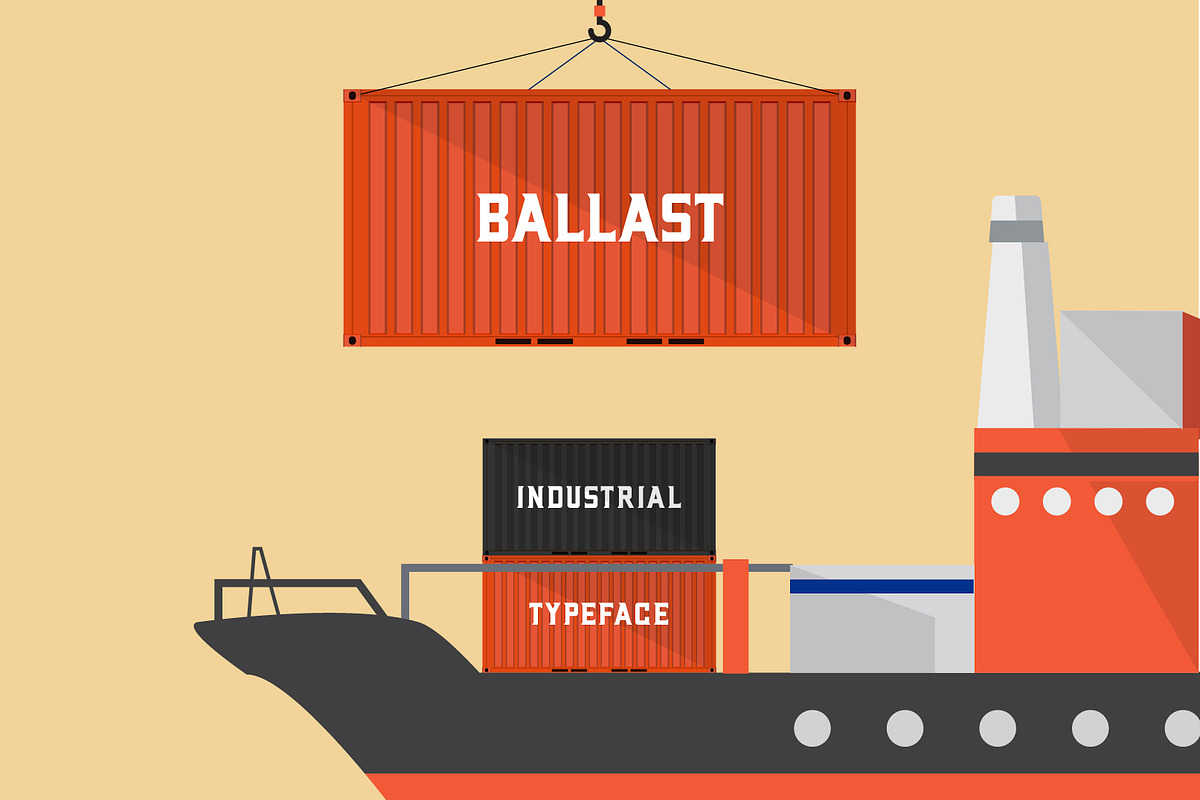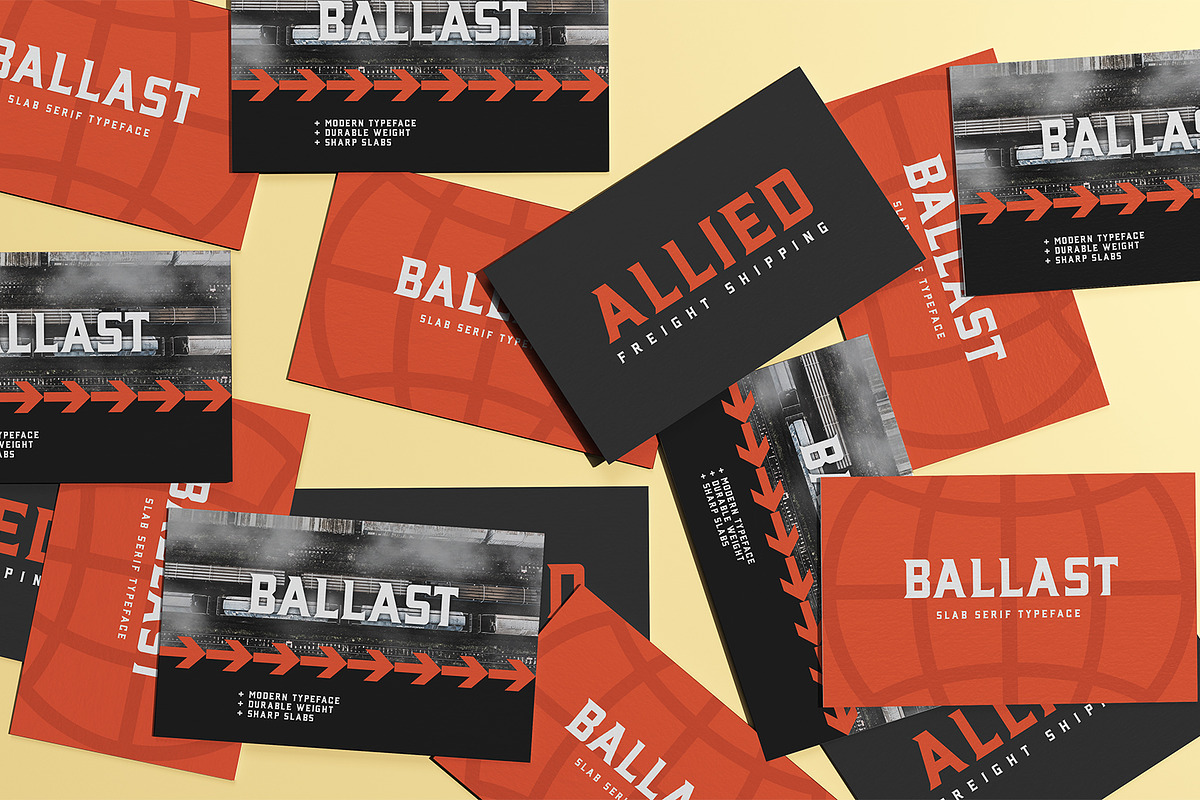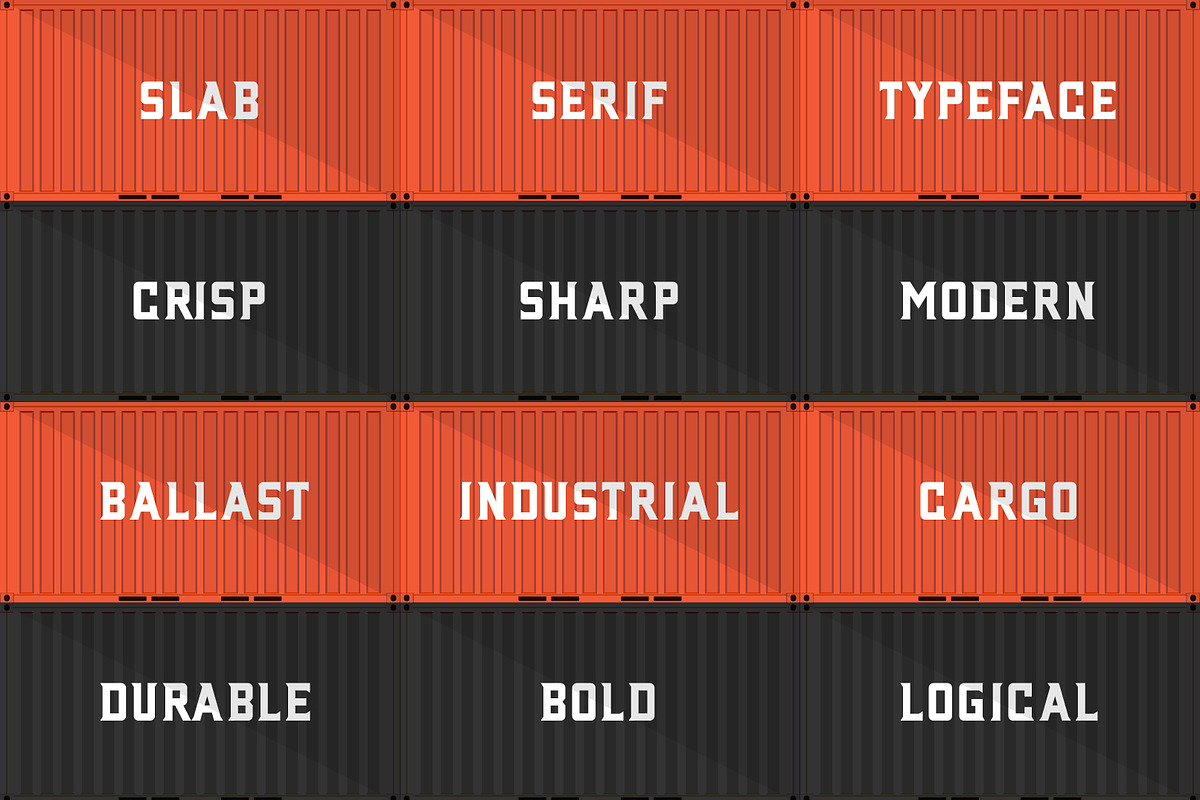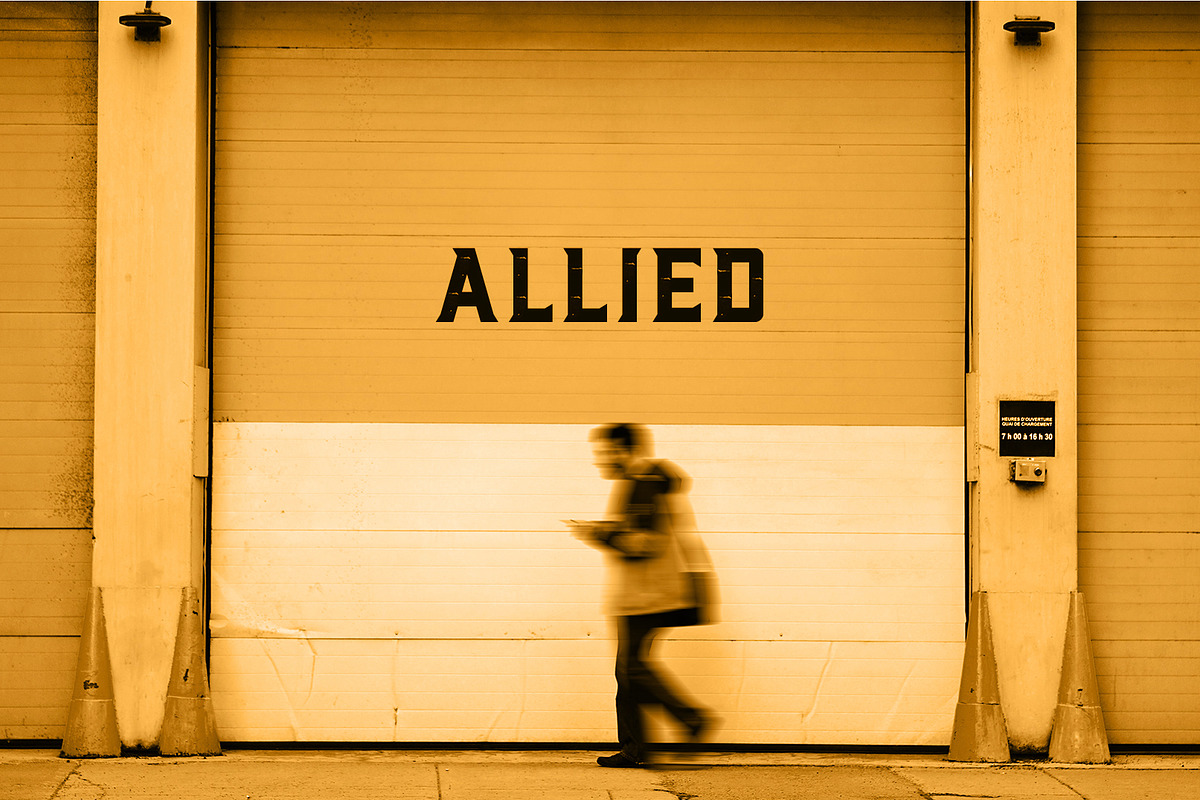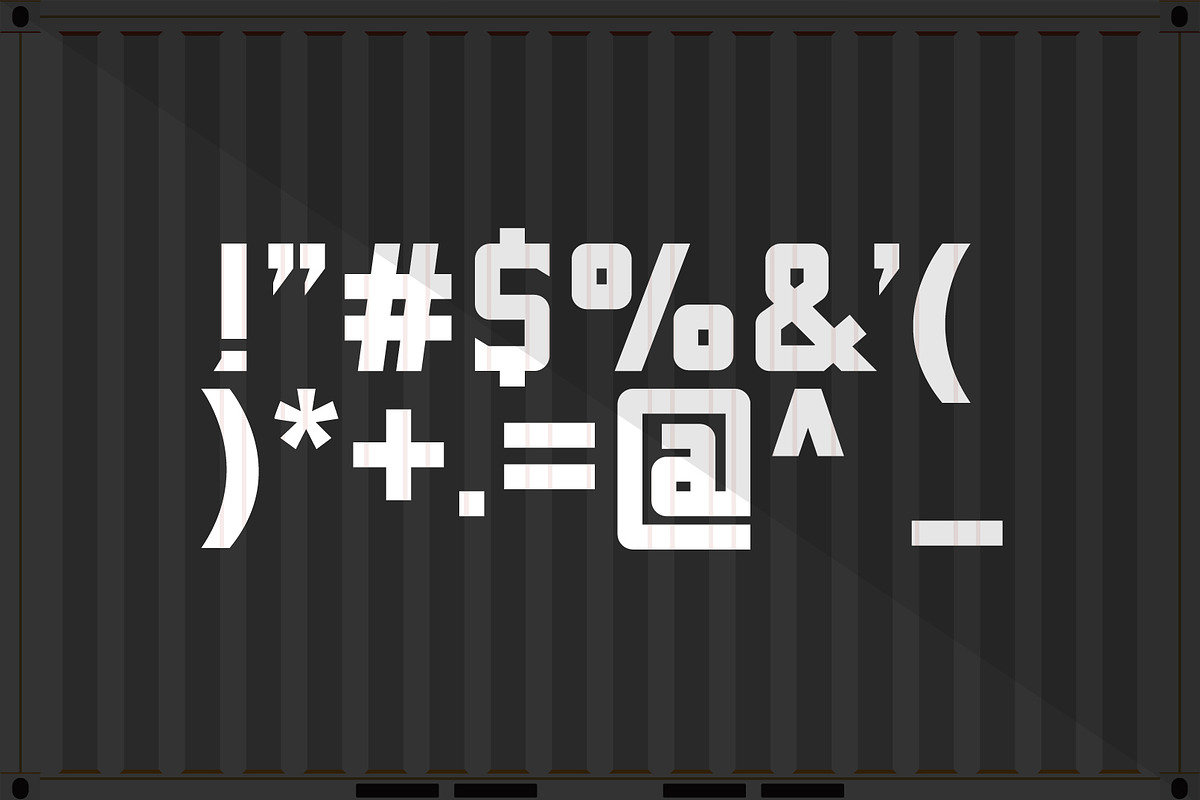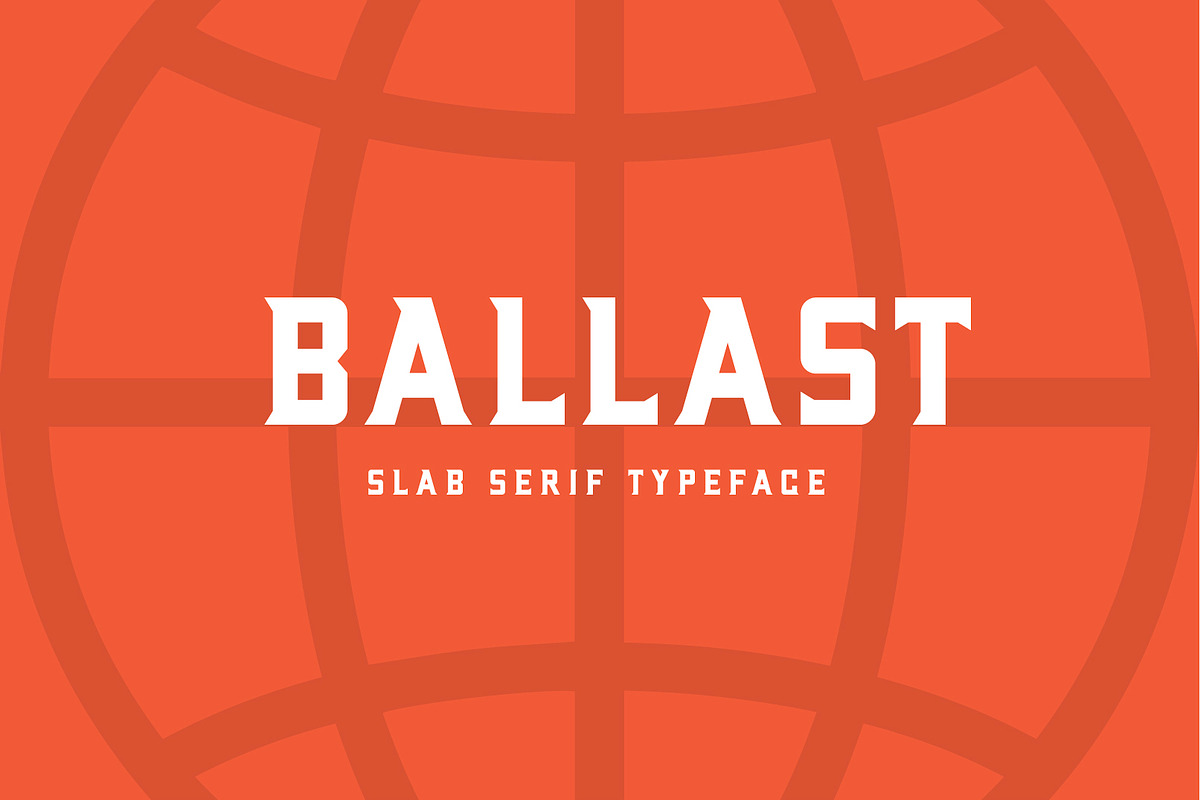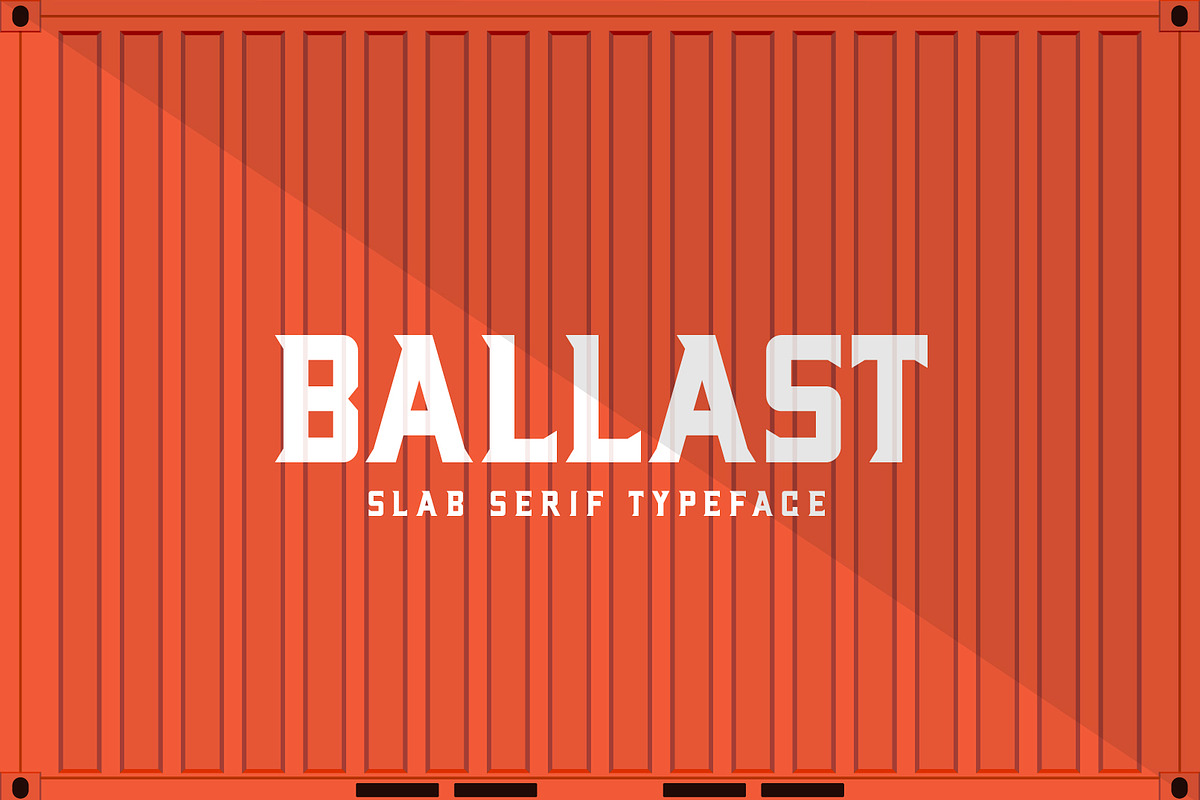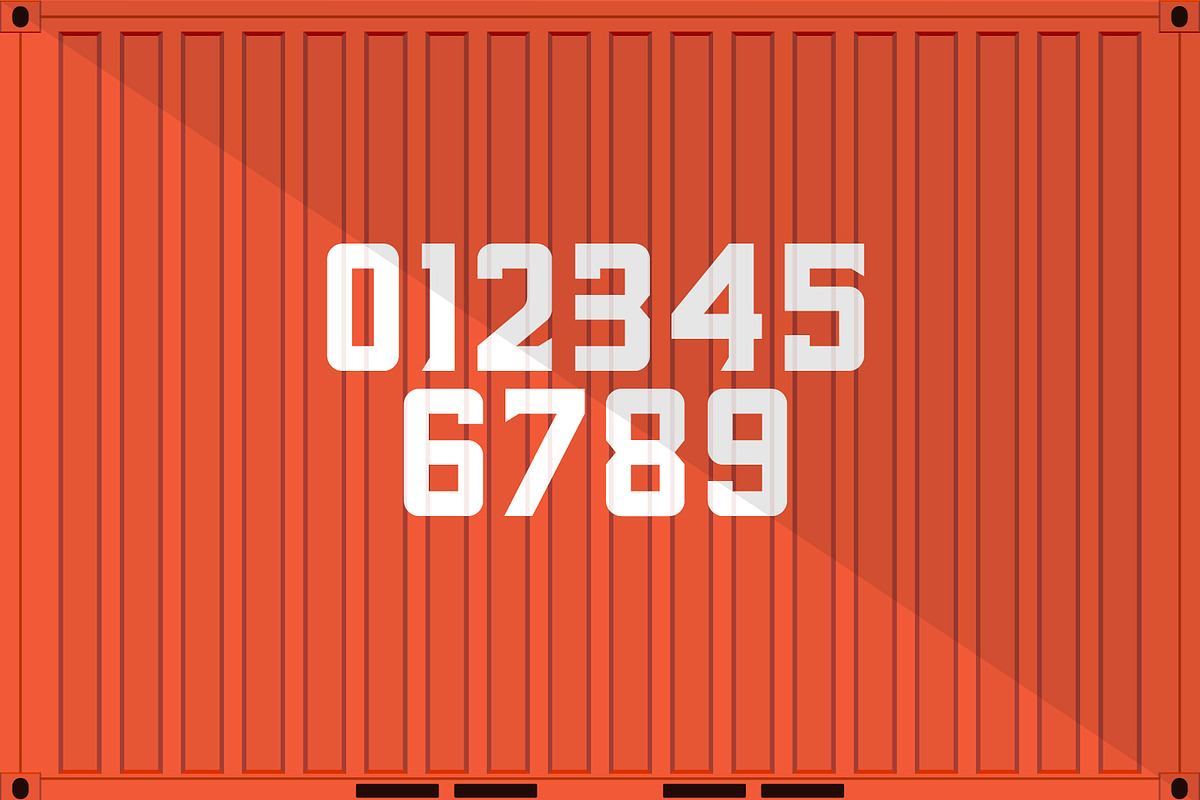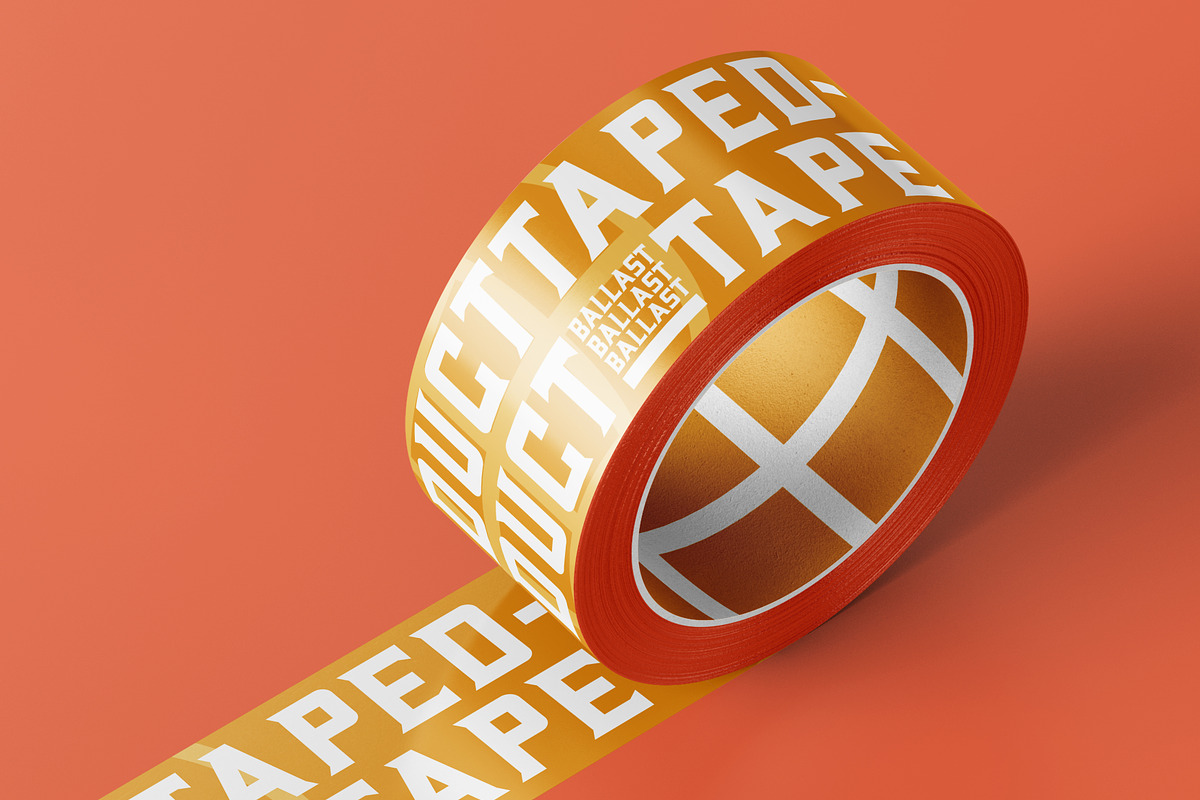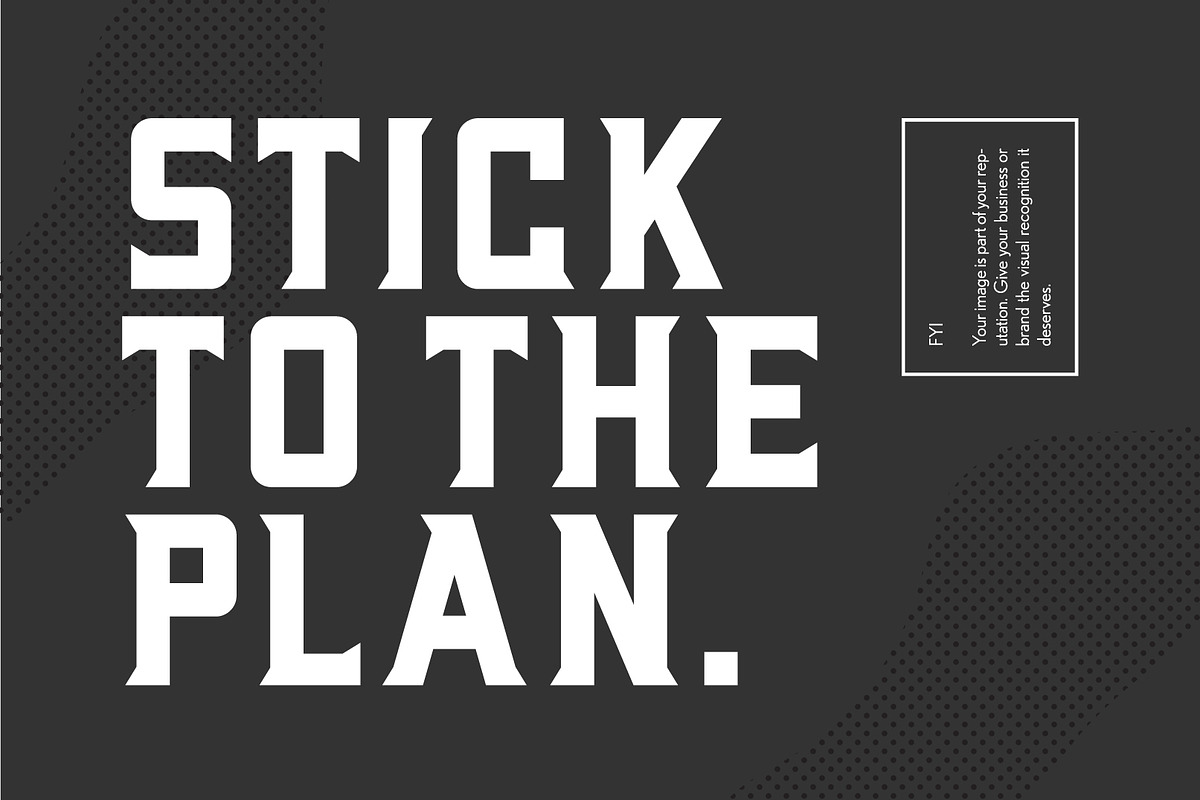
Ballast Pro | A Geometric Slab Serif
Ballast Pro is a hand-crafted industrial slab serif typeface. Sharp, logistical, and modern, Ballast is a versatile font. Strong caps and sharp serifs are effective in a plethora of applications. The geometric, bold-lined construction lends modern durability, tempered with precisely angled edges and memorable shapes. Suitable for headlines, logos, posters, and more!